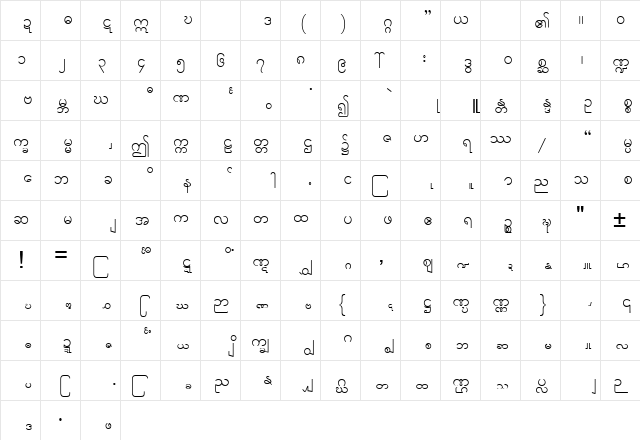
Type Regular
Design Context for Type Typeface
Type takes a measured approach to typography — its balanced proportions and neutral character make it a reliable workhorse for both digital and print work.